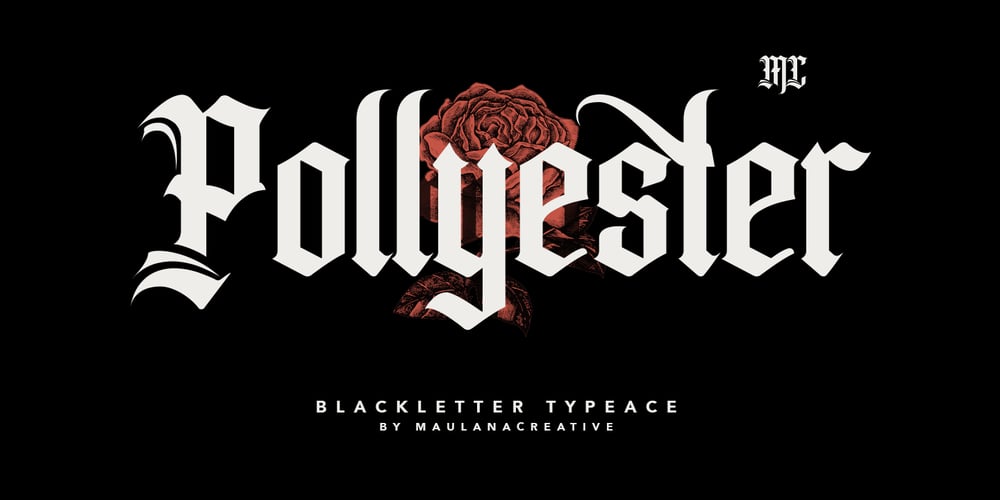
Pollyester
Pollyester font
Pollyester Font Family was designed by Gilang Maulana and published by Maulana Creative. Pollyester contains 1 styles and family package options. Introducing Winchester Blackletter Vintage is a handmade Modern Victorian handlettering, which is combining modern and classic typography with some awesome alternates. Yes we back to early 1800s, bring classic touch on this decade.Thanks for use this font. MaulanaCreative.